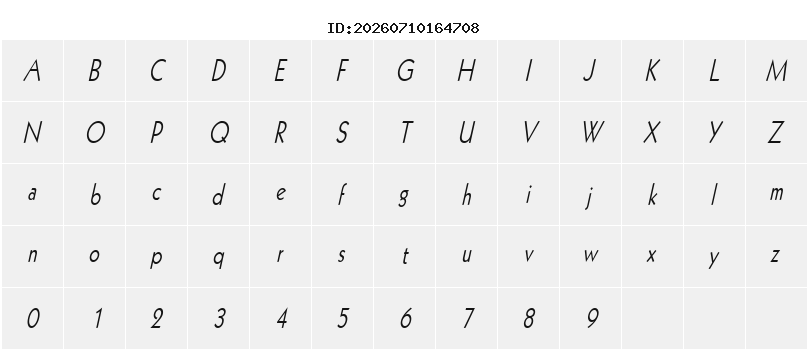
Geo 112 Thin Preview
• Font Name: Geo 112 Thin
• Full Font Name: Geo 112 Thin Italic
About Geo 112 Thin.ttf
Geo 112 Thin.ttf is a modern, elegant sans-serif font designed for ultimate readability and visual harmony. Perfect for branding, headlines, web design, and print materials.